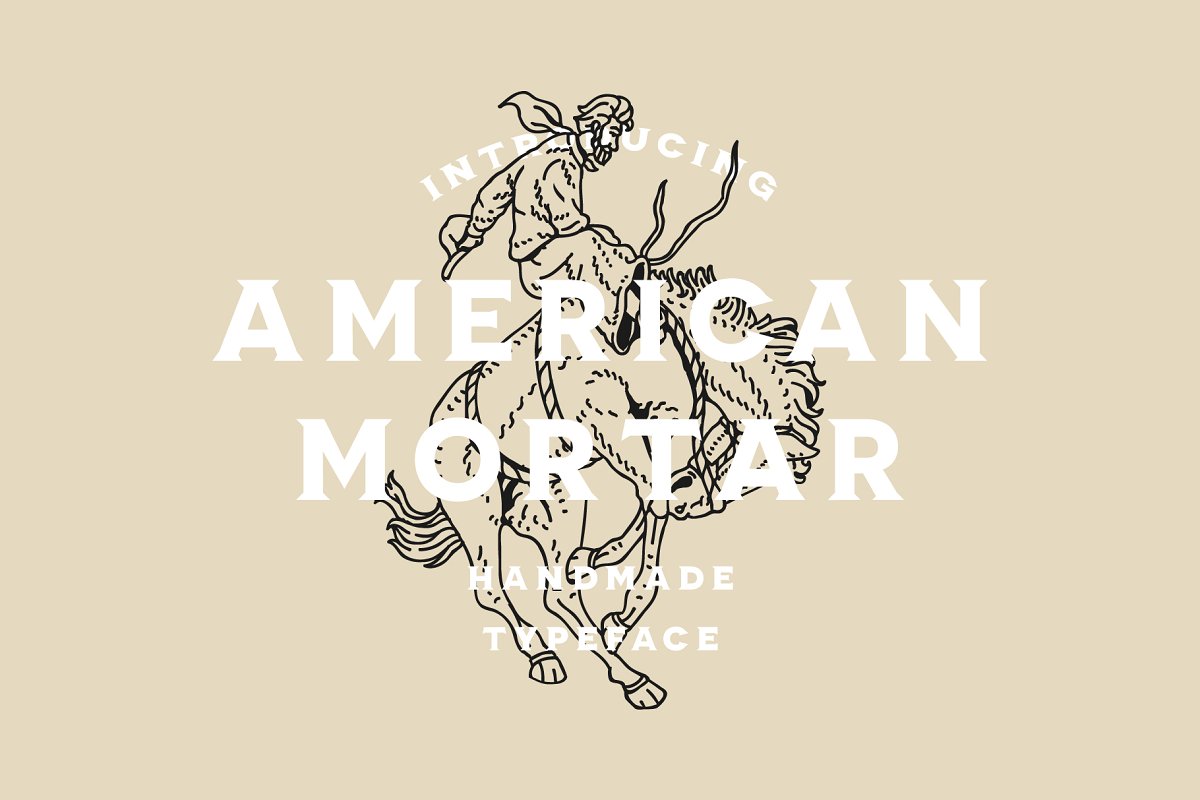
About the American Mortar Vintage Family Font
AMERICAN MORTARA masculine vintage display font with a modern flair, This nostalgic font is super fun to work with and is perfect for logos and designers but really works well for all purposes, Features:THIS ENTIRE FONT IS CAPITALIZEDCapital CharactersSmall Cap CharactersNumbersSpecial CharactersOTF fileTEST OUT THE FONT BELOW :)FOLLOW MEInstagram | www